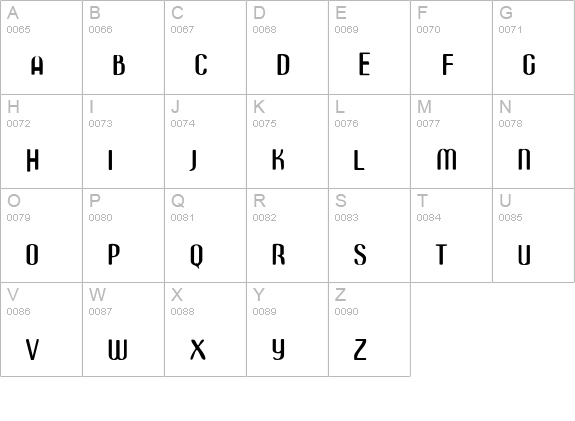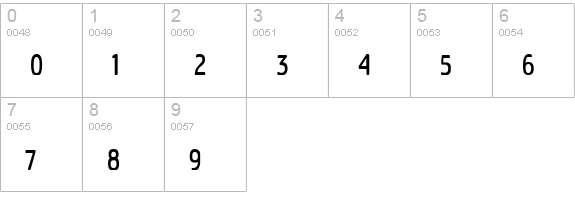
Azimech Font Details
Introducing Azimech font - a versatile and stylish typeface that combines modern elegance with a touch of whimsy. With its clean lines and unique flourishes, Azimech is perfect for a wide range of design projects, from branding to editorial design. This free font is sure to make a statement with its bold yet sophisticated look. Whether you're designing a logo, creating a poster, or crafting a beautiful invitation, Azimech is the perfect choice to add a touch of personality to your work. Azimech font is freely available to download at FontsMarket.com, where you can easily access this eye-catching typeface and start using it in your projects today. Don't miss out on the opportunity to elevate your design work with this stunning font - download Azimech now and let your creativity soar!